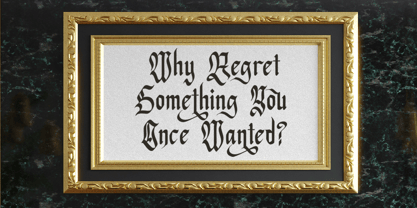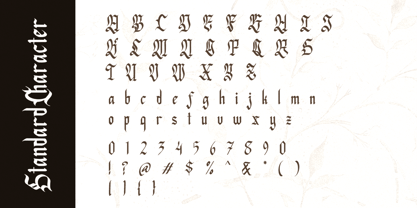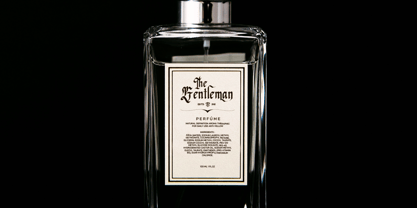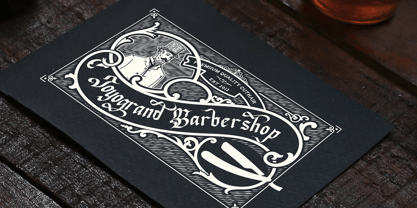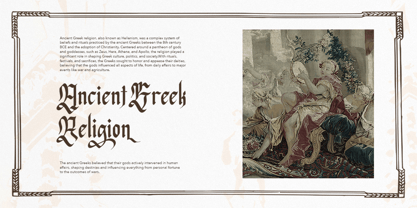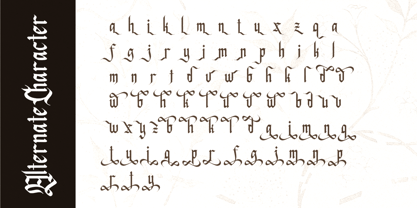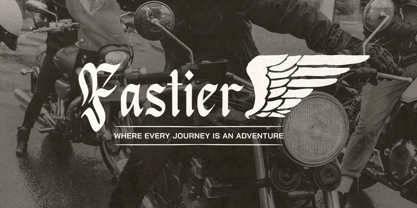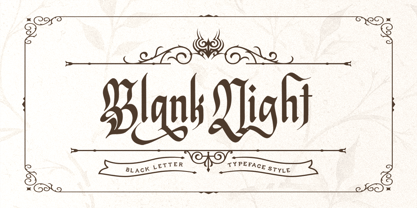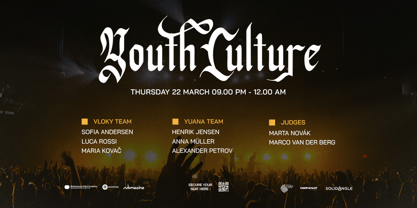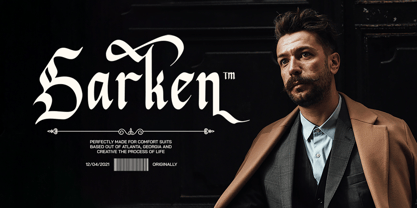
Blank Night
The Blank Night Font Family was designed by Sarid Ezra, Dzikrul Aulia and published by Bale Type. Blank Night contains 1 styles.
Blank Night is a modern and stylish Blackletter font that you can use for any purpose and designs especially that require retro and vintage looks. With stylish alternates, this font will suitable for quotes, album cover, logo, or even movie poster. This font also support multi language.